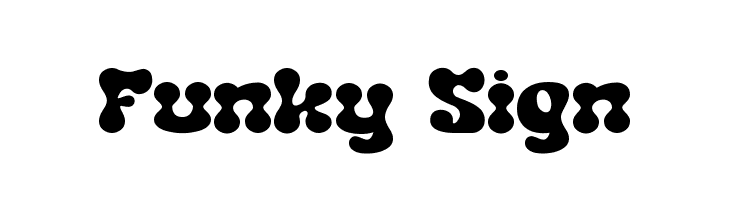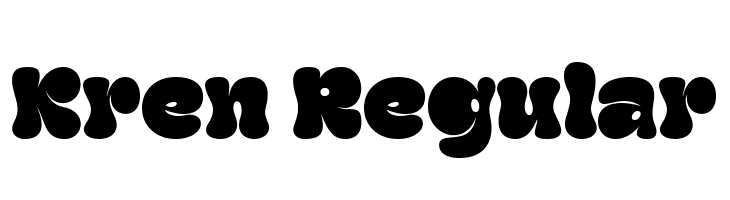
( Fonts by Letterena Studios )
A sophisticated cursive font with elegant, flowing strokes.
( Fonts by MJType )
A playful, bold font with rounded, thick strokes and a friendly appearance.
( Fonts by Niskala Huruf )
A playful and elegant handwritten script font with smooth, fluid strokes.
( Fonts by wep )
A dynamic and elegant script font with fluid, connected strokes.
( Fonts by Scratchones )
A playful, hand-drawn font with tall, narrow letters and consistent stroke width.
( Fonts by Lemonthe )
A sophisticated, elegant handwritten font with fluid strokes and a natural flow.
( Fonts by hati )
A playful, hand-drawn font with a bold, rounded style and informal charm.
( Fonts by InspiraType )
An elegant, flowing script font with smooth, cursive strokes and graceful curves.
( Fonts by InspiraType )
A graceful and elegant script font with flowing, continuous strokes.